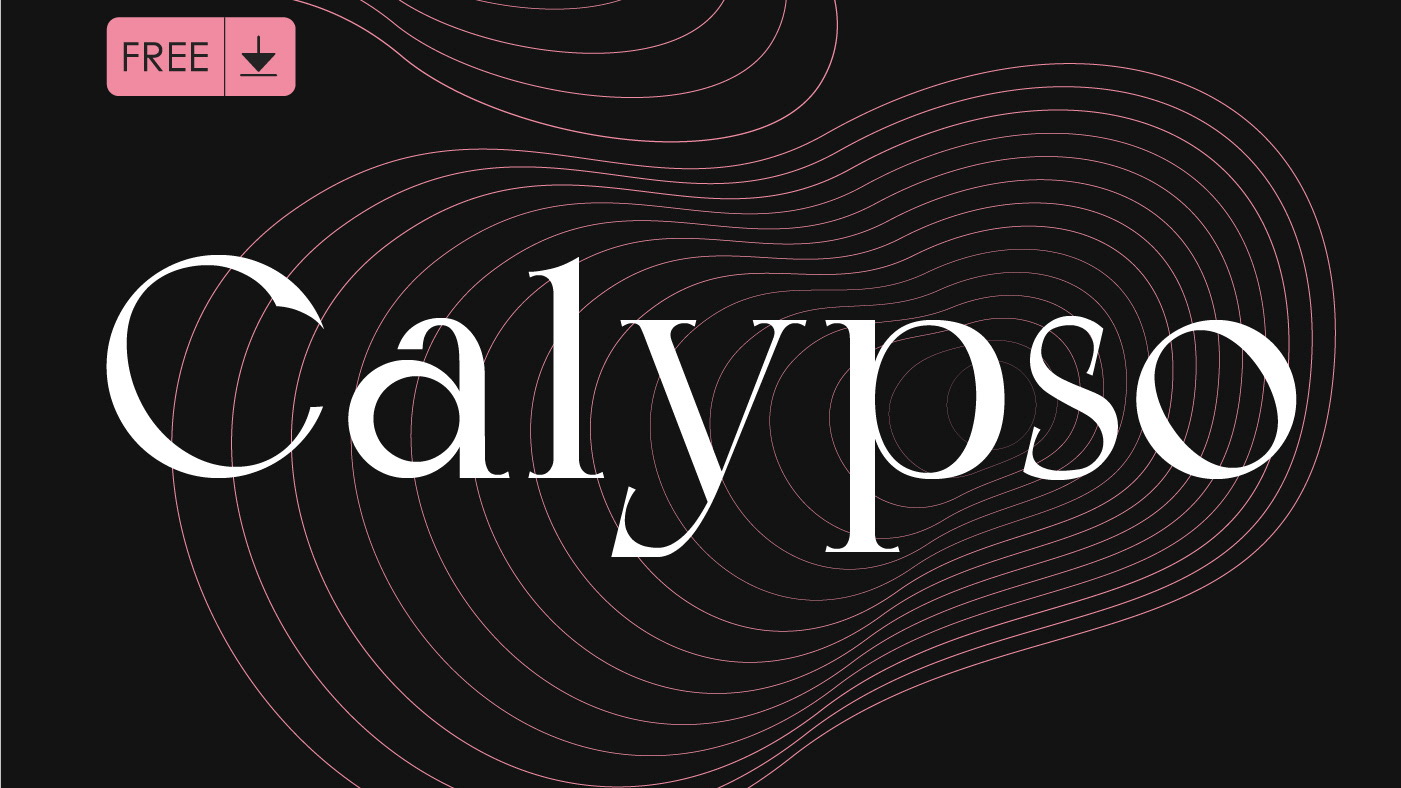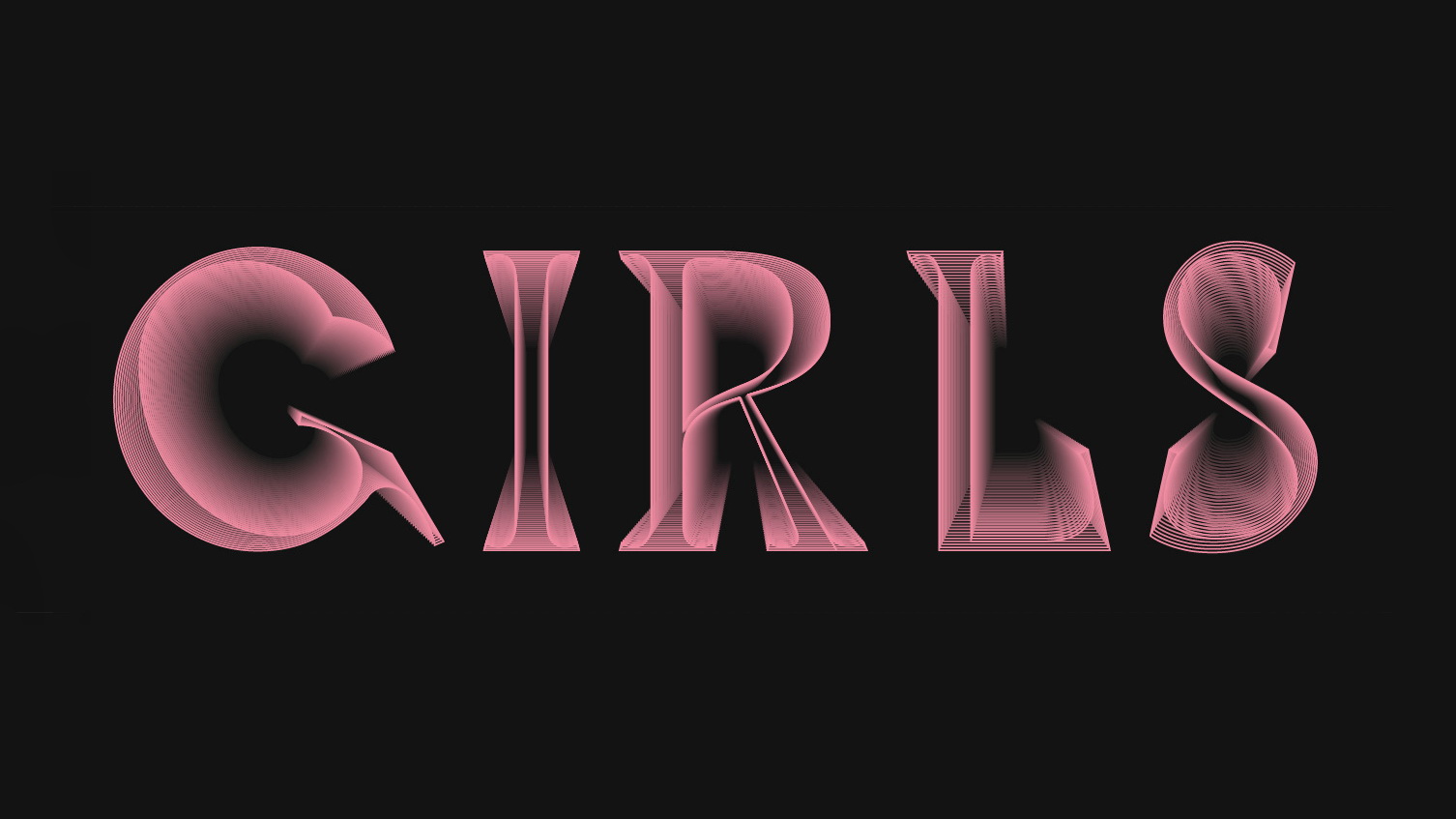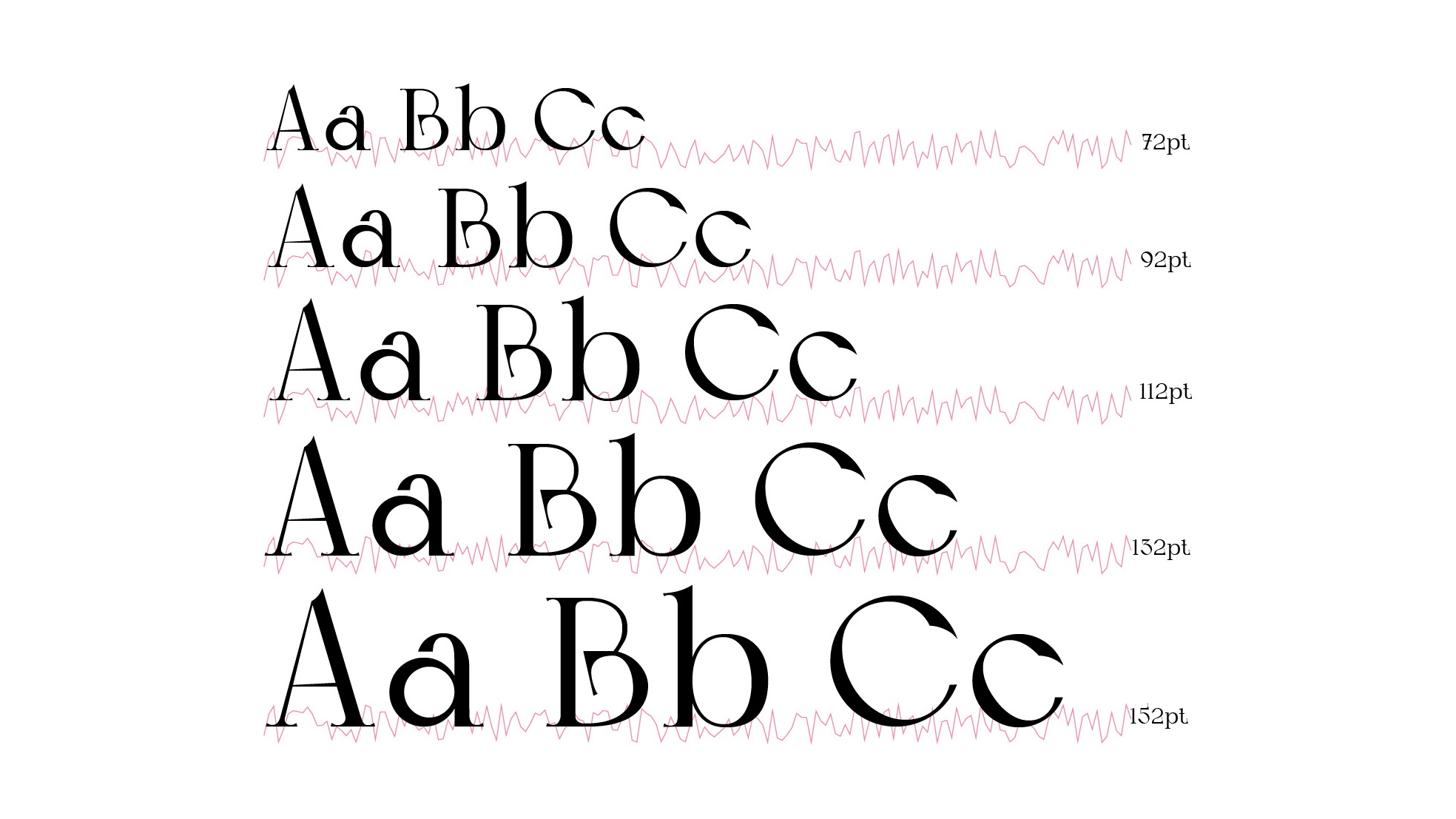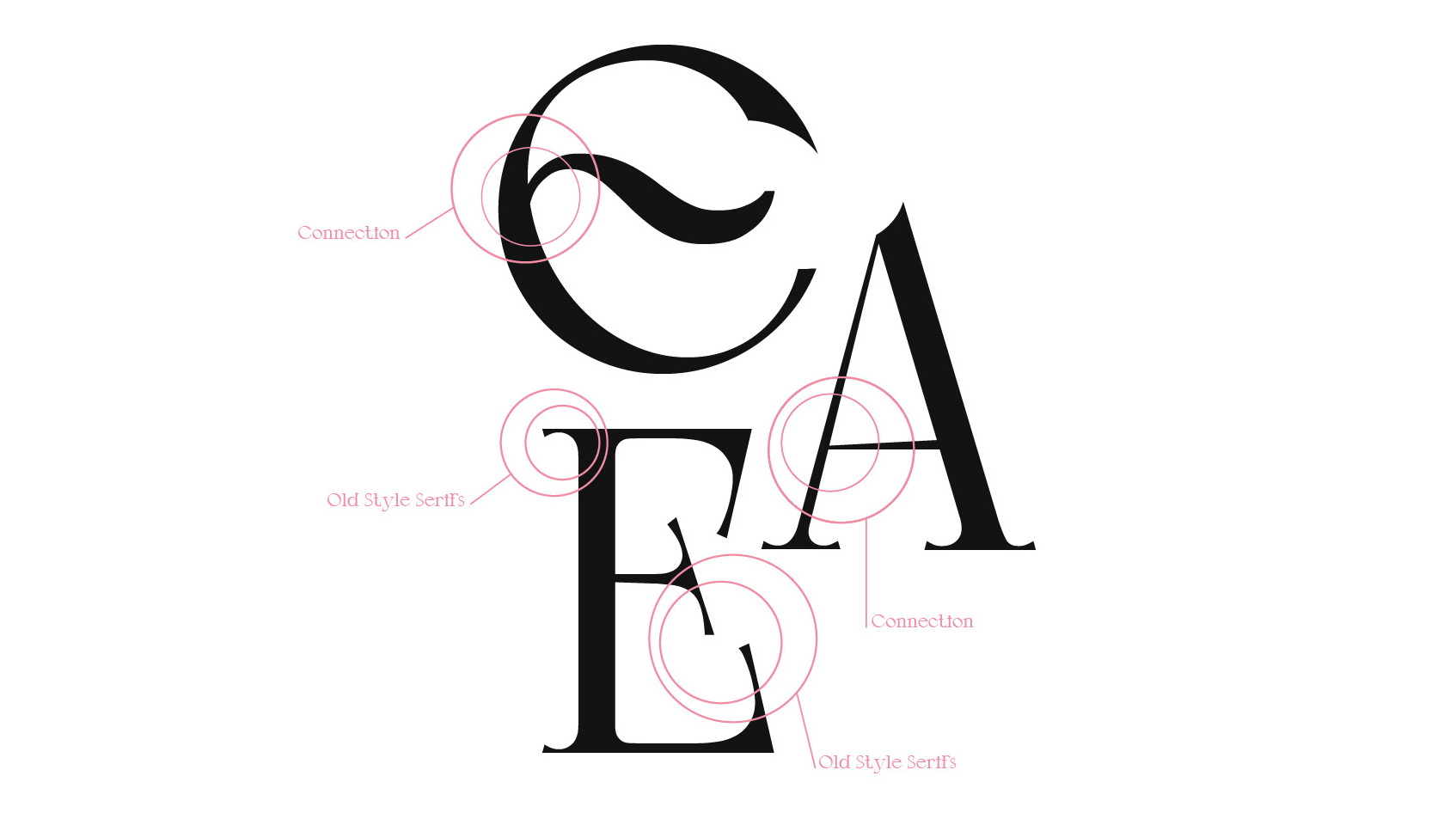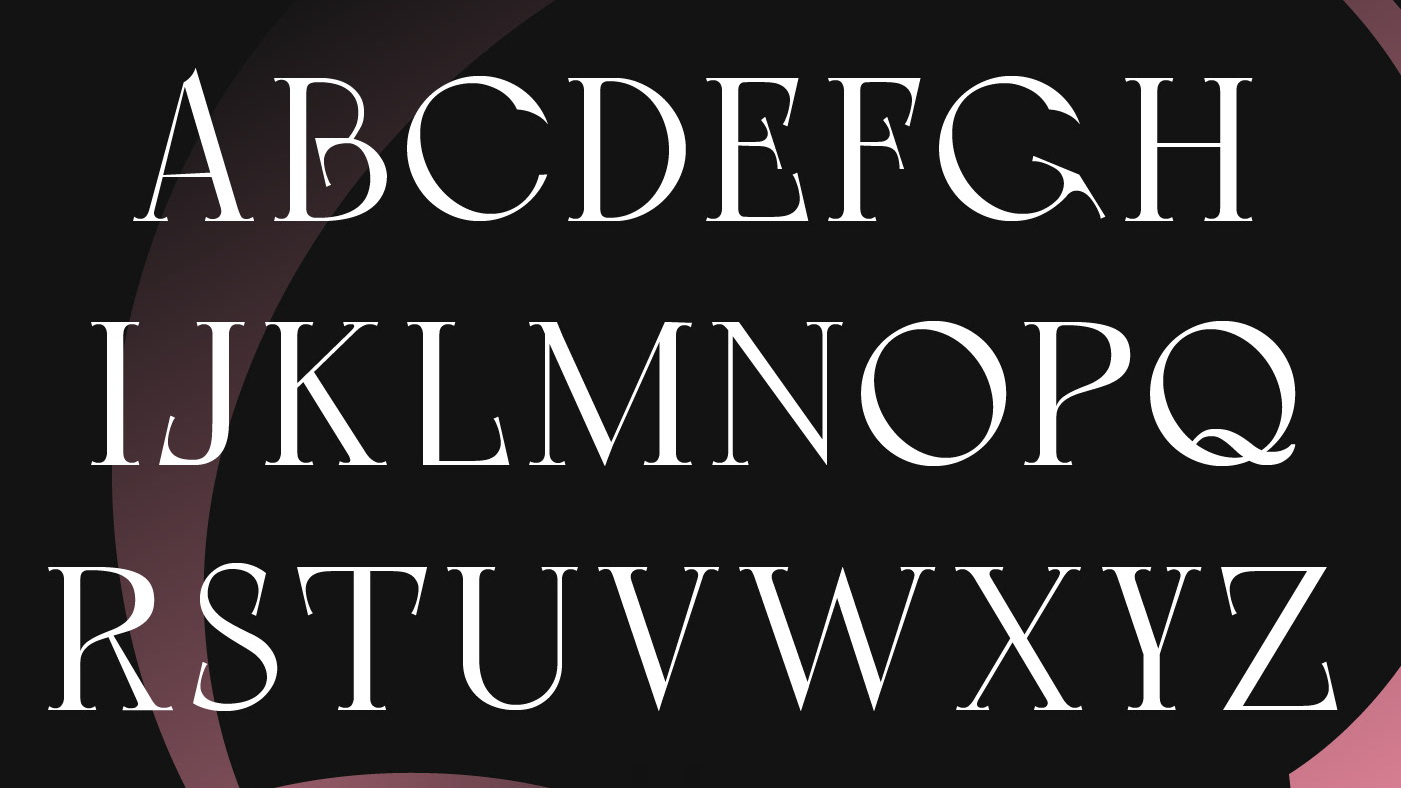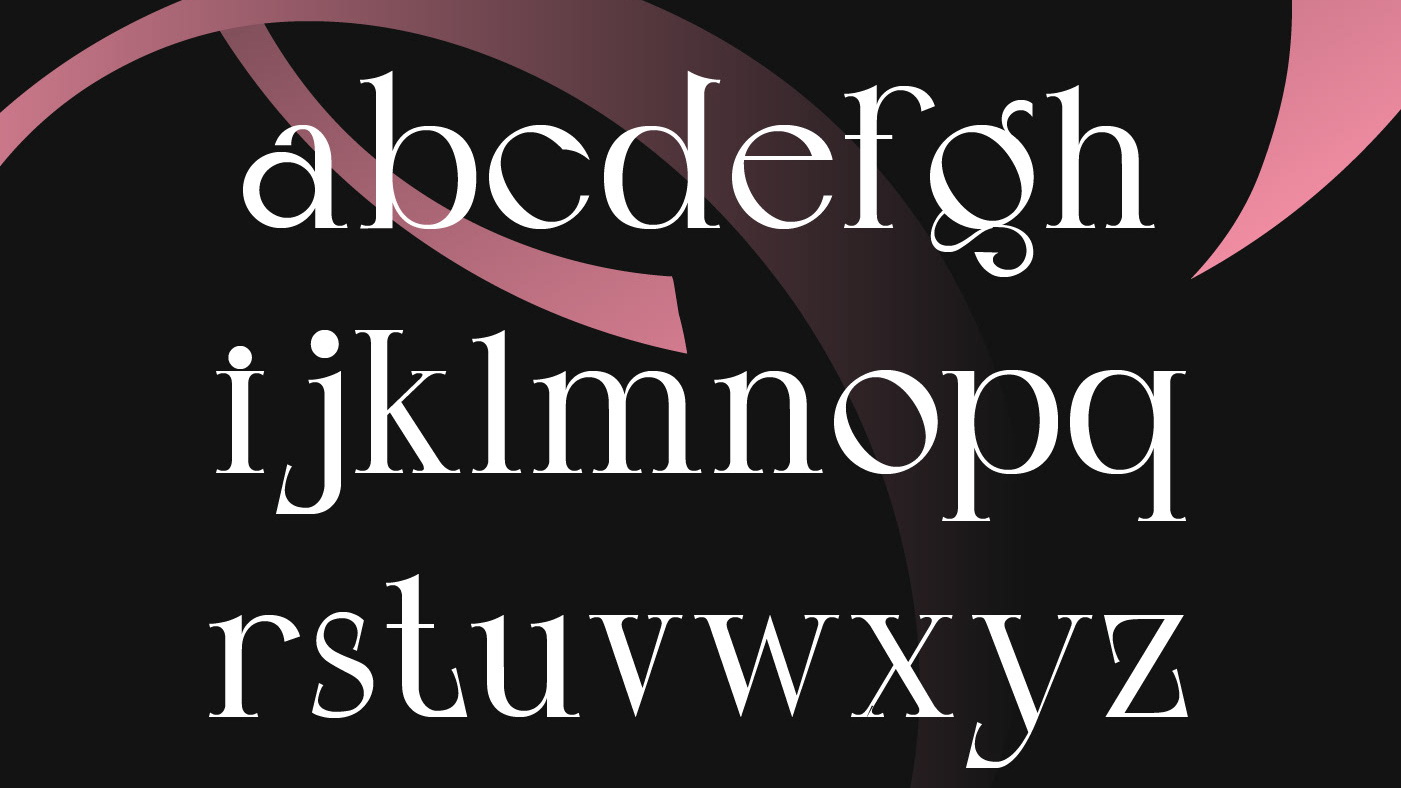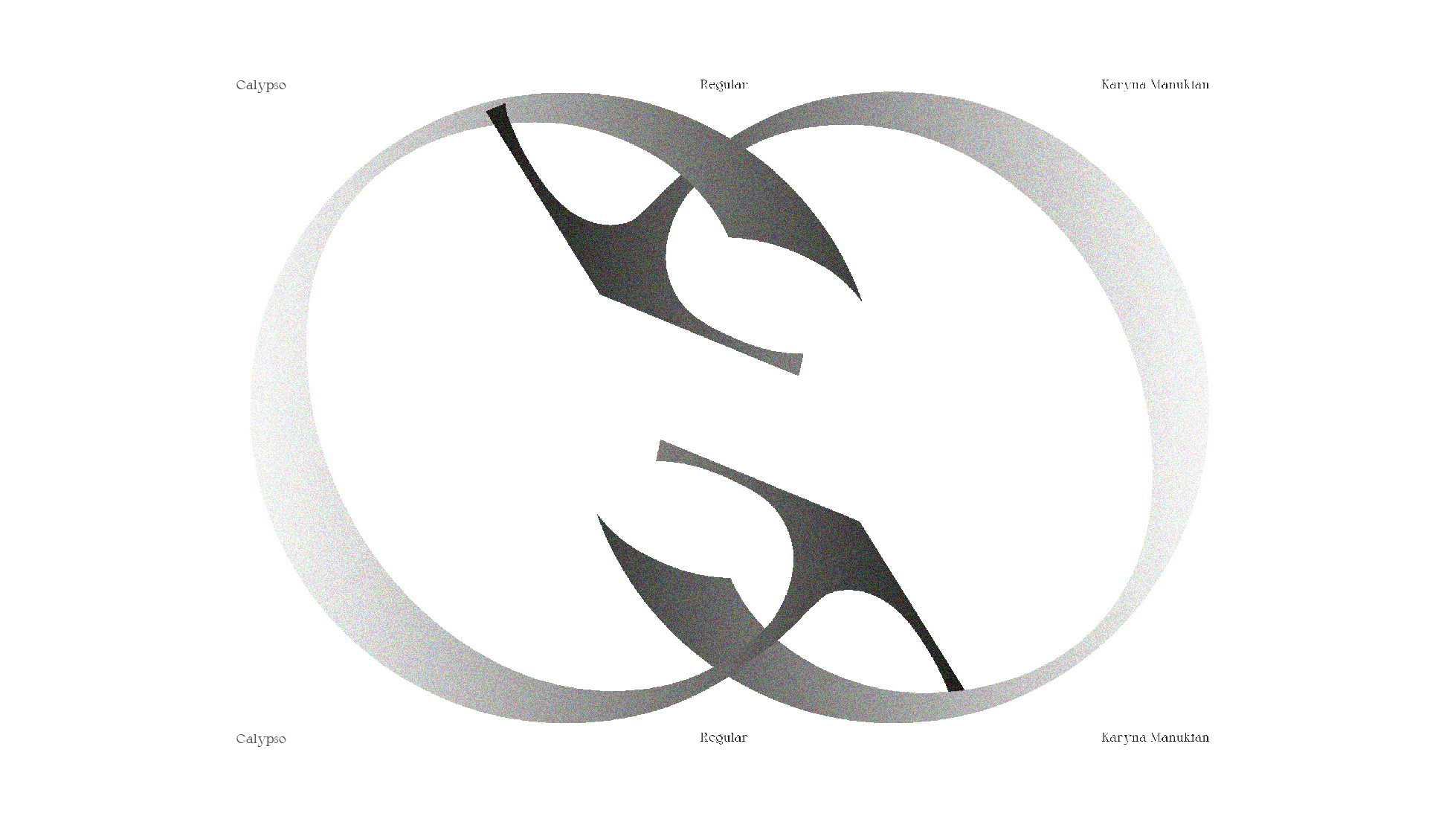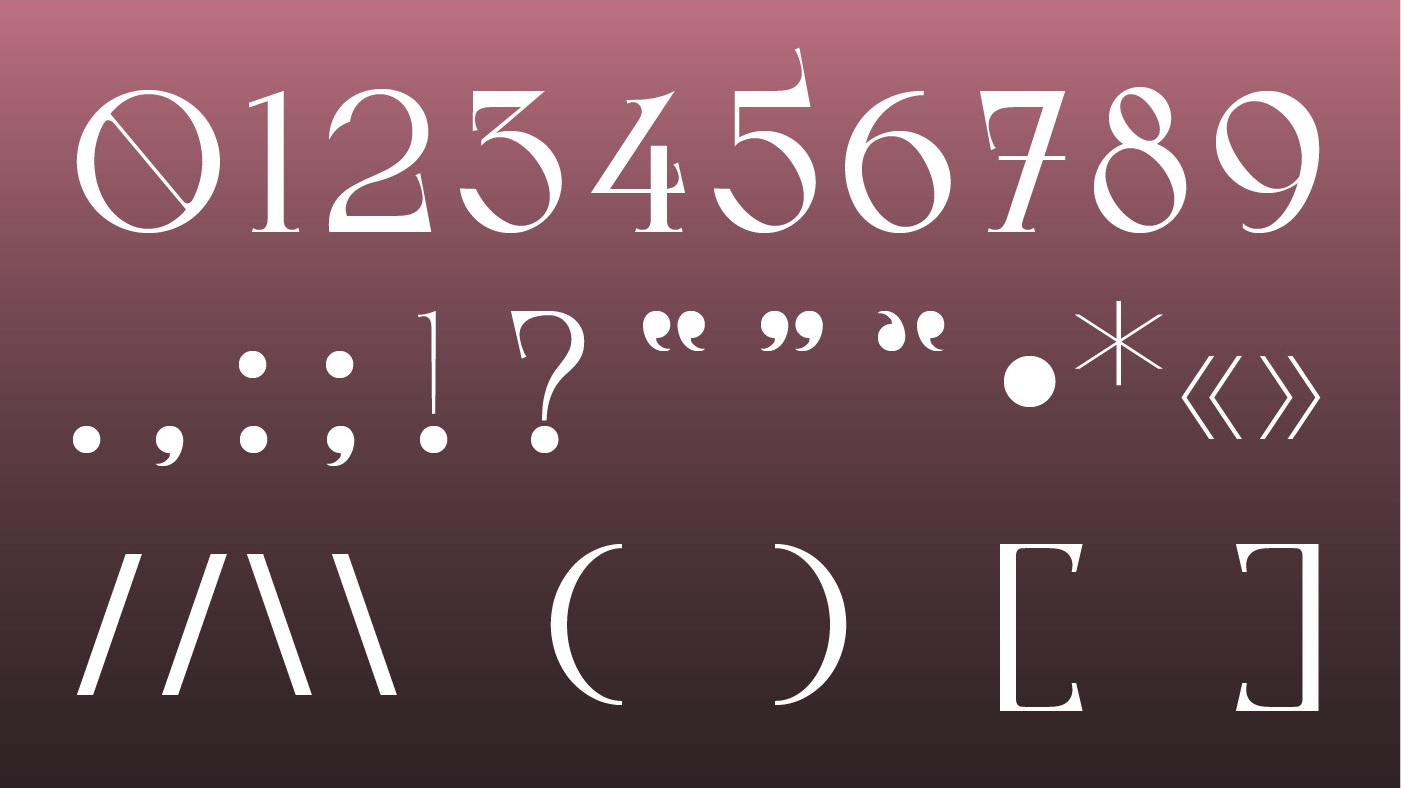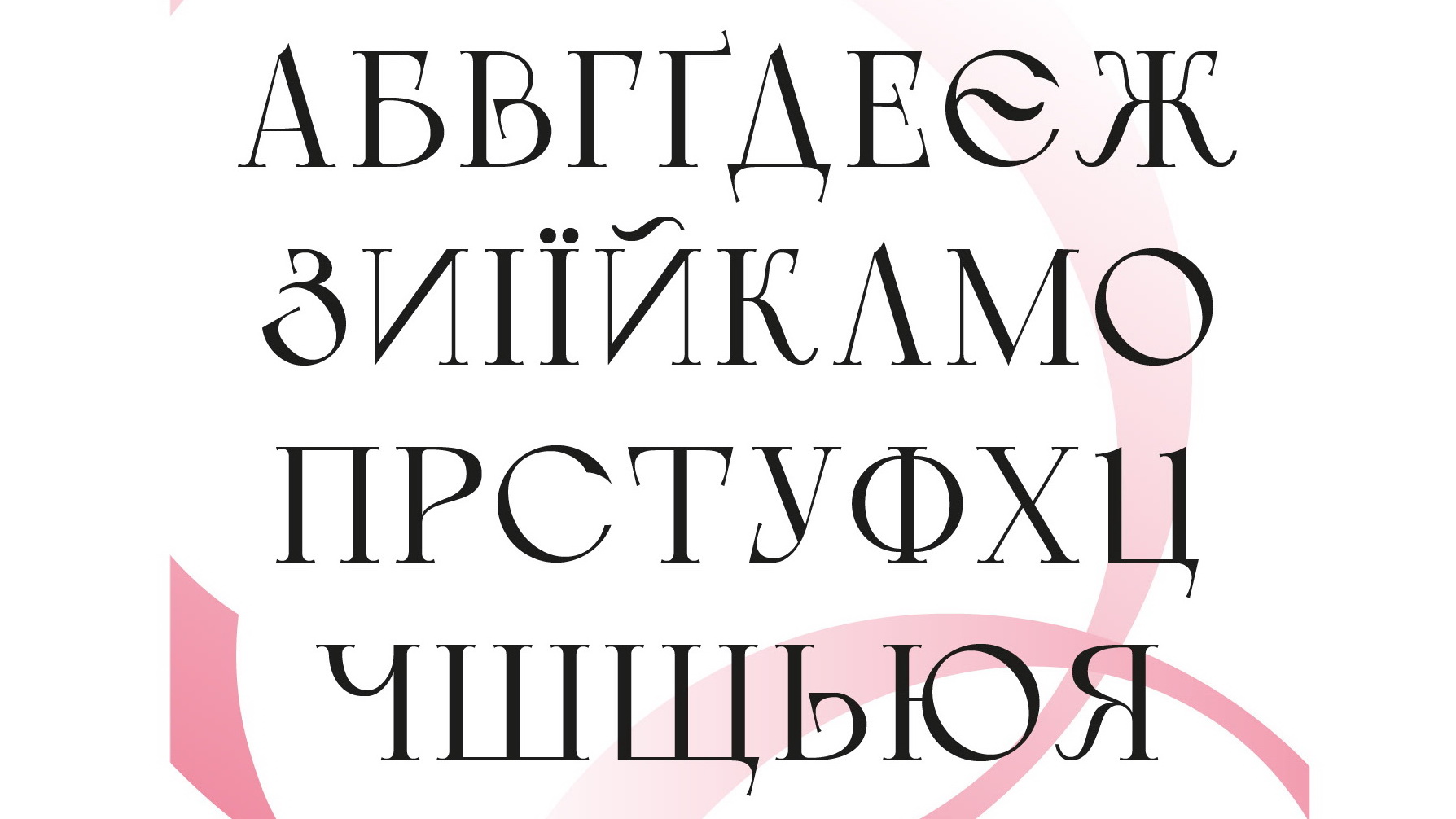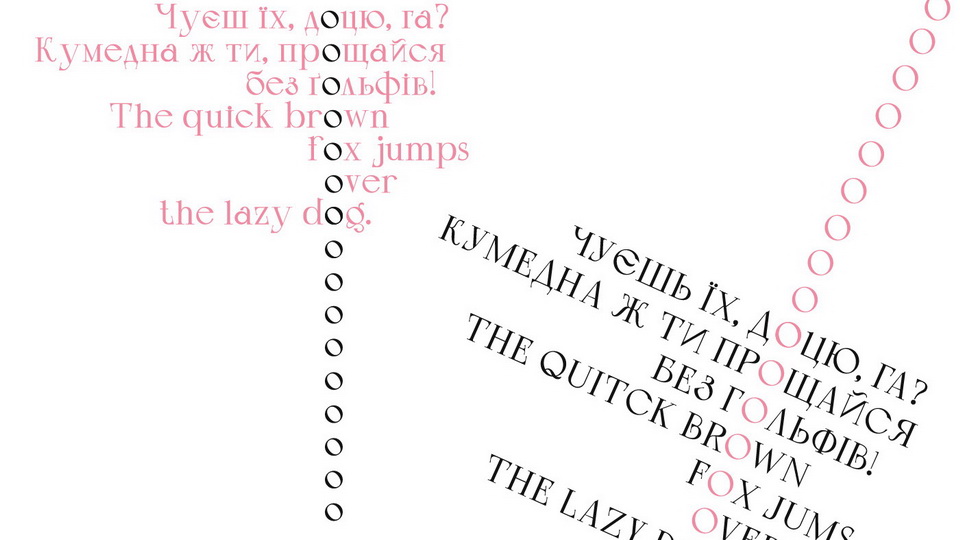
Calypso Font
Calypso is a contrasting typeface that’s sophisticated and bold at the same time. The type was inspired by women. Modern girls are combination of the most conflicting qualities, such as strength and tenderness. Calypso presents such a perfect combination.
Calypso is a display font useful for headings, short, medium or long text. Calypso includes Latin and Cyrillic symbols, numbers and signs, and has one style.
Designed by: Karyna Manukian